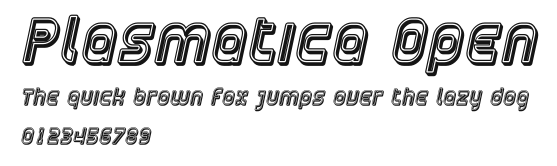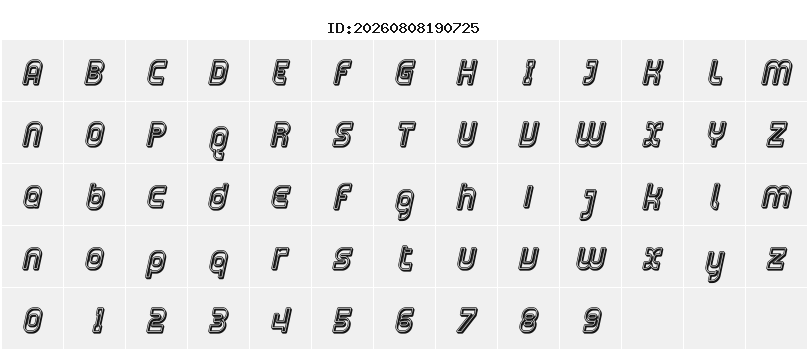
Plasmatica Open Preview
• Font Name: Plasmatica Open
• Font ID: DerekVogelpohl: Plasmatica Open Italic: 2001
• Full Font Name: Plasmatica Open Italic
• Version: Version 1.0; 2001; initial release
• PostScript Name: PlasmaticaOpen-Italic
• Designer: Derek Vogelpohl
• Description: Copyright (c) Derek Vogelpohl, 2001. All rights reserved. Plasmatica - Open Italic is a trademark of Apostrophic Laboratories.
About Plasmatica Open.ttf
Plasmatica Open.ttf is a modern, elegant sans-serif font designed for ultimate readability and visual harmony. Perfect for branding, headlines, web design, and print materials.